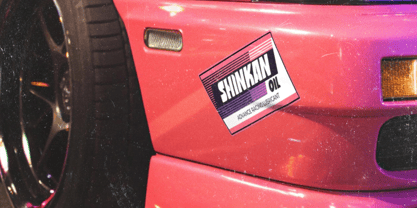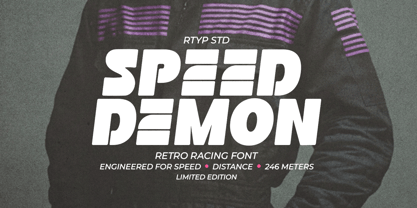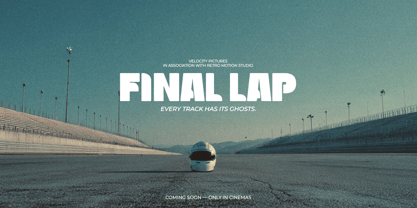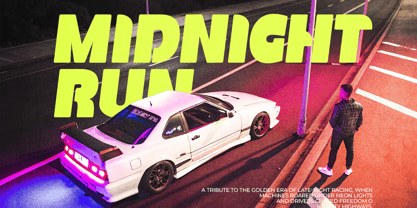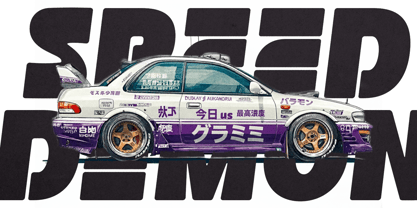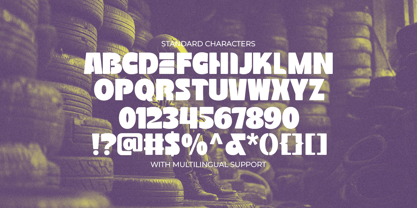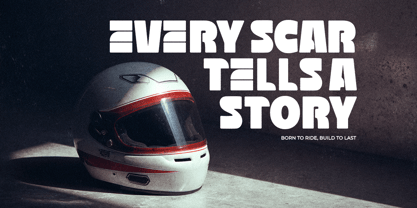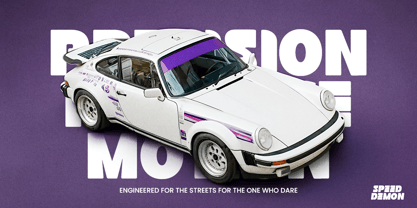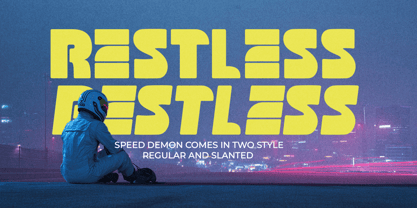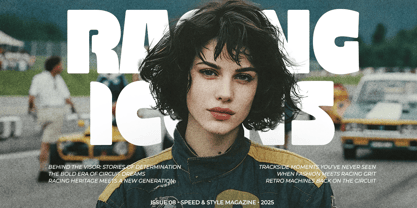
Speed Demon
by Rillatype
The Speed Demon Font Family was designed by Gustian Agung Asprilla and published by Rillatype. Speed Demon contains 2 styles and family package options.
Speed Demon is a bold retro racing typeface inspired by vintage motorsport posters, street legends, and 80s–90s car culture. Built for high-impact visuals, this font delivers raw speed, sharp edges, and adrenaline-filled energy that makes every word feel like it belongs on the racetrack.
Designed in two versatile styles — Regular and Slanted — Speed Demon gives you the flexibility to create dynamic titles, logotypes, and editorial layouts with a strong nostalgic punch. Use the Regular for solid statements, or switch to Slanted for instant motion and drama.
Perfect for posters, branding, packaging, apparel, stickers, and anything that needs a fearless retro racing spirit. Whether you’re designing for print or digital, Speed Demon is engineered to keep your message fast, loud, and unforgettable.